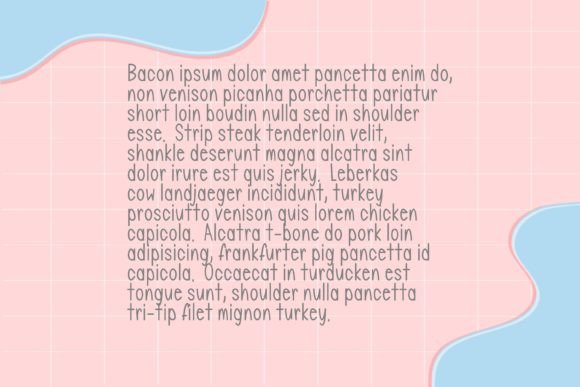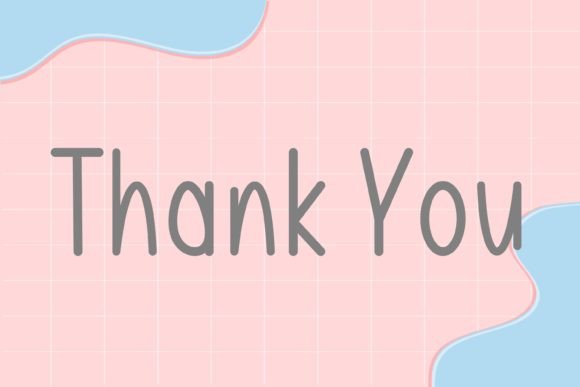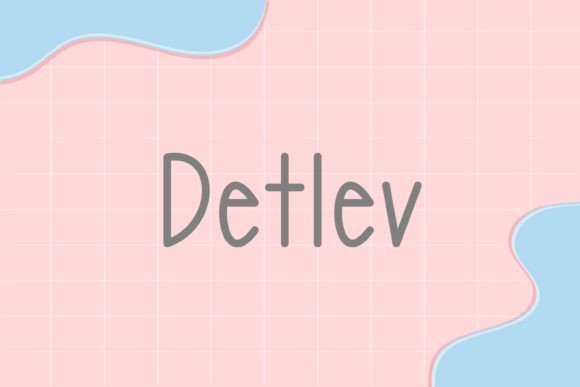
Introducing Detlev Font: A Simple, Friendly, and Whimsical Handwritten Font
Are you tired of using the same old fonts in your designs? Look no further than Detlev Font, a simple and friendly handwritten font that’s sure to brighten up any project. With its whimsical and quirky style, Detlev Font is perfect for designers and crafters looking to add a personal touch to their work.
The Characteristics of Detlev Font
Detlev Font is a handwritten font that’s characterized by its simplicity and friendliness. It’s a font that’s easy to read and understand, making it perfect for a wide range of applications. The font has a whimsical and quirky feel to it, which gives it a unique and playful personality.
One of the standout features of Detlev Font is its versatility. It’s a font that can be used in a variety of contexts, from logos and wedding invitations to quotes, advertisements, and more. Whether you’re working on a print project, a digital design, or a craft project, Detlev Font is a great choice.
What Makes Detlev Font So Special?
So, what makes Detlev Font so special? For starters, it’s a font that’s designed to be easy to read and understand. The letters are clear and concise, making it perfect for body text and headlines. Additionally, the font has a unique and playful personality that’s sure to add a touch of whimsy to any design.
Another thing that sets Detlev Font apart is its flexibility. It’s a font that can be used in a variety of sizes and styles, from small and subtle to large and bold. Whether you’re looking to create a statement piece or a more understated design, Detlev Font is a great choice.
Detlev Font is a versatile font that can be used in a wide range of applications. Here are just a few ideas to get you started:
- Logos: Detlev Font is a great choice for logos, particularly for businesses that want to convey a friendly and approachable personality.
- Wedding Invitations: The font’s whimsical and playful style makes it perfect for wedding invitations and other special occasion stationery.
- Quotes: Detlev Font is a great choice for quotes and other inspirational text, adding a touch of personality and whimsy to any design.
- Advertisements: The font’s unique and playful style makes it perfect for advertisements, helping to grab the attention of potential customers.
- Print: Detlev Font can be used in a variety of print applications, from brochures and flyers to posters and banners.
- Magazines: The font’s readability and versatility make it a great choice for magazines and other publications.
Why Choose Detlev Font?
So, why choose Detlev Font for your next design project? Here are just a few reasons:
- Unique and Playful Style: Detlev Font has a unique and playful style that’s sure to add a touch of personality to any design.
- Easy to Read: The font is easy to read and understand, making it perfect for body text and headlines.
- Versatile: Detlev Font can be used in a wide range of applications and contexts.
- High-Quality: The font is of high quality, with clear and concise letters that will look great in any design.
| Font Name | Detlev Font |
| Author | Woracado |
In conclusion, Detlev Font is a simple and friendly handwritten font that’s perfect for designers and crafters looking to add a personal touch to their work. With its whimsical and quirky style, Detlev Font is sure to brighten up any design and add a touch of personality. Whether you’re working on a logo, wedding invitation, quote, advertisement, or other project, Detlev Font is a great choice.